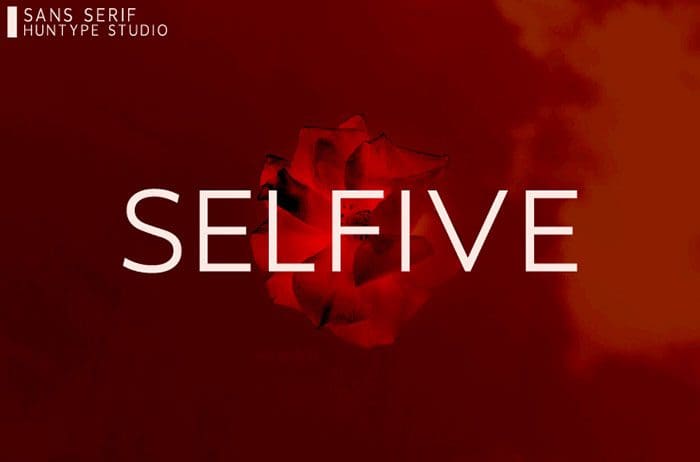
Selfive Sans Serif Font
Selfive is a beautiful and modern sans serif font. Use this gorgeous and unique typeface to bring any DIY project to life! Thanks to Mas Anis for sharing this font! Take a look at this portfolio for more of his stunning fonts.